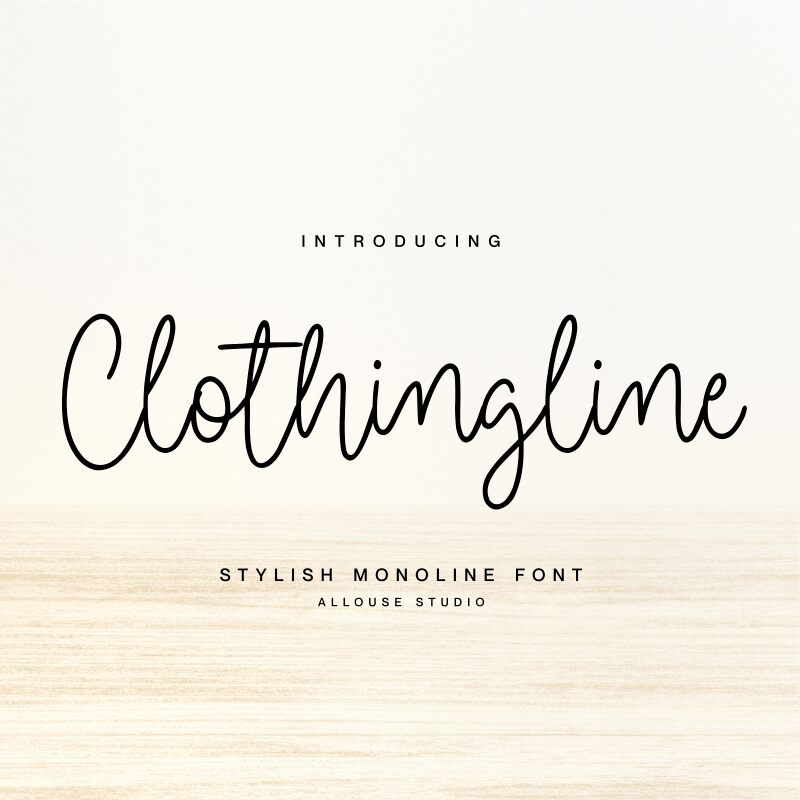
Clothingline
Clothingline is a stylish monoline handwritten font designed by Allouse.Studio. It is perfect for luxurious branding, fashion-related projects, and modern logos. The condensed thin lettering gives Clothingline an elegant and delicate look that stands out from the crowd. It's an ideal choice for creating eye-catching headlines and titles, as well as sophisticated typographic compositions.